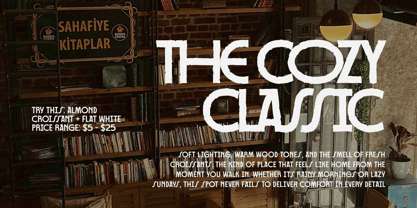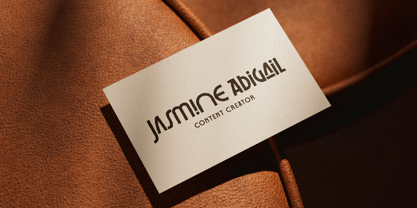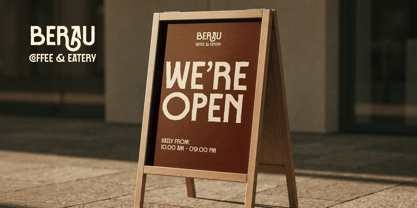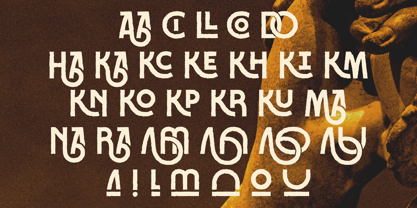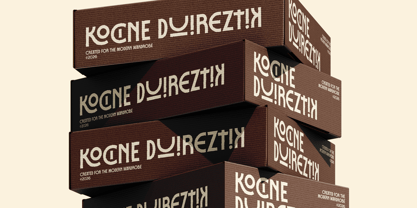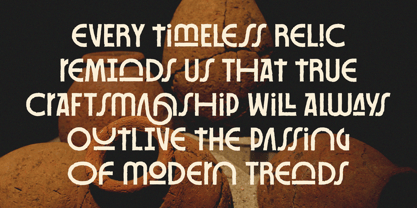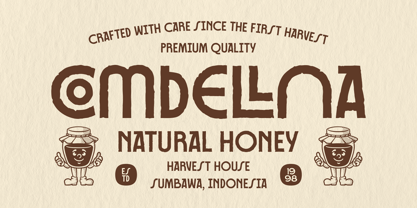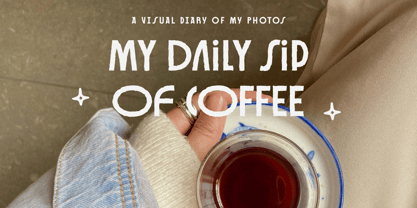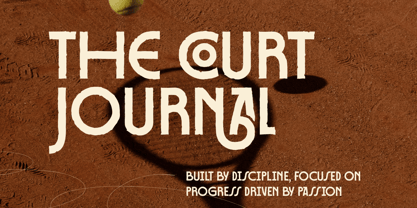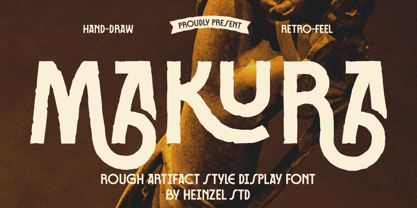
Makura
by Heinzel Std
The Makura Font Family was designed by Nofi Sofyan Hadi and published by Heinzel Std. Makura contains 1 styles. More about this family
Makura is a bold rough artifact display font inspired by hand-drawn lettering, vintage print textures, and imperfect craftsmanship. Designed with rugged edges and an organic silhouette, Makura delivers an authentic retro feel that stands out in posters, branding, album covers, apparel, packaging, logos, book covers, and editorial headlines.
Every letter is carefully crafted with irregular details that recreate the look of handmade typography, making your designs feel raw, expressive, and full of character. Whether you're creating vintage branding, rustic packaging, horror themes, outdoor adventure graphics, or artistic merchandise, Makura instantly adds personality and visual impact.
Its bold shapes maintain excellent readability while preserving an authentic handcrafted appearance. Makura works beautifully for large headlines, display typography, social media graphics, café branding, craft products, music posters, whiskey labels, camping themes, and creative projects that demand a distinctive vintage aesthetic.
Designers: Nofi Sofyan Hadi
Foundry: Heinzel Std